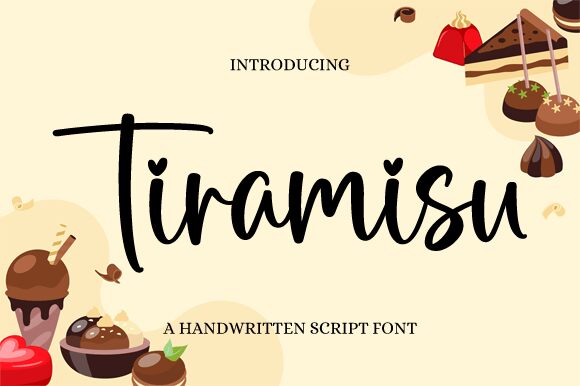
Tiramisu
Tiramisu, designed by Graphix Line Studio, is a semi-light handwritten font that exudes a personal and subtly whimsical charm. Its smooth curves and slanted lines mimic the effortless strokes of a pen, bringing an authentic handcrafted feel to any project. This typeface boasts an aesthetic that is both relaxed and refined, making it incredibly versatile for various creative endeavors.
With its handwritten style, Tiramisu has the potential to add warmth and individuality to invitations, branding materials, social media graphics, and more. Its semi-light weight ensures that it remains legible yet unobtrusive—perfect for designs that require a touch of elegance without overwhelming other visual elements.
Embrace the distinct personality of Tiramisu to imbue your projects with a sense of sophistication and artisanal flair. Whether it's fashion branding or editorial design, this font stands ready to elevate your creative expression with its unique blend of casual grace and stylish poise.